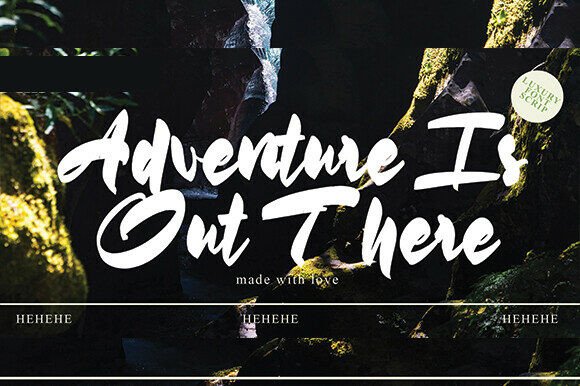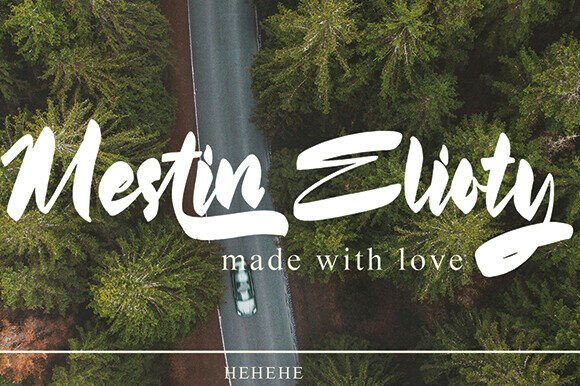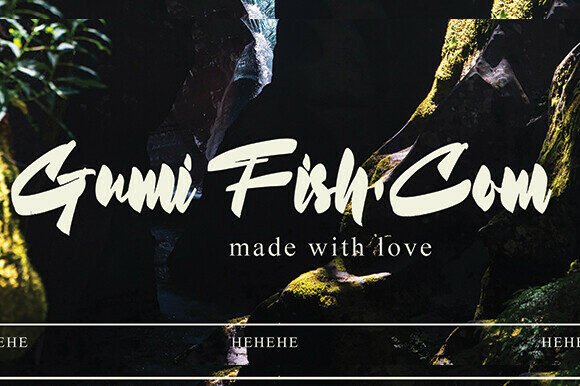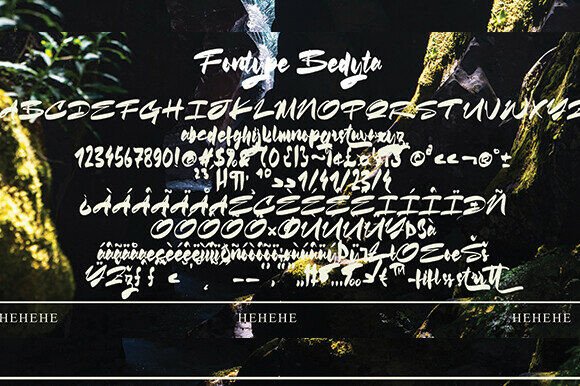
Bedyta Font: The Ultimate Choice for Modern Branding
In the world of typography, fonts play a crucial role in defining a brand’s identity. A well-chosen font can elevate a brand’s visual appeal, convey its personality, and leave a lasting impression on its audience. One such font that has gained significant attention in recent times is Bedyta. This bold, energetic, and contemporary script font has become a favorite among designers and crafters, and for good reason.
What is Bedyta Font?
Bedyta is a modern script font characterized by its thick, brush-style strokes and smooth, flowing motion. The letterforms feature a slight italic lean and clean, rounded terminals, giving the typeface a polished yet hand-crafted personality. Its heavyweight and high legibility make it an impactful choice for modern branding. Whether you’re designing a logo, creating social media headers, or crafting packaging, Bedyta is the perfect font to make a statement.
Key Features of Bedyta Font
- Bold and Energetic: Bedyta’s thick, brush-style strokes give it a bold and energetic feel, making it perfect for headlines, titles, and emphasis.
- Contemporary Script: The font’s smooth, flowing motion and slight italic lean give it a contemporary and dynamic feel.
- Clean and Rounded Terminals: The clean, rounded terminals add a touch of sophistication and elegance to the font.
- High Legibility: Bedyta’s heavyweight and clear letterforms make it highly legible, even at smaller sizes.
Use Cases for Bedyta Font
Bedyta is a versatile font that can be used in a variety of design applications. Here are some of the most popular use cases:
- Lifestyle Logos: Bedyta’s bold and energetic personality makes it perfect for lifestyle logos that require a modern and dynamic feel.
- Apparel Design: The font’s high legibility and clean lines make it suitable for apparel design, including t-shirts, hoodies, and other clothing items.
- Social Media Headers: Bedyta’s contemporary script style and bold strokes make it an excellent choice for social media headers, including Facebook, Instagram, and Twitter.
- Creative Packaging: The font’s unique personality and high legibility make it perfect for creative packaging designs that require a modern and eye-catching feel.
Why Choose Bedyta Font?
With so many fonts available, why choose Bedyta? Here are a few reasons why Bedyta stands out:
- Unique Personality: Bedyta’s bold, energetic, and contemporary script style gives it a unique personality that sets it apart from other fonts.
- High Versatility: The font’s versatility makes it suitable for a wide range of design applications, from logos to social media headers.
- Easy to Read: Bedyta’s high legibility makes it easy to read, even at smaller sizes.
- Modern and Fresh: The font’s modern and fresh feel makes it perfect for brands that want to convey a youthful and dynamic image.
In conclusion, Bedyta is a bold, energetic, and contemporary script font that is perfect for modern branding. Its unique personality, high versatility, and high legibility make it an impactful choice for designers and crafters. Whether you’re designing a logo, creating social media headers, or crafting packaging, Bedyta is the perfect font to make a statement. So why not give Bedyta a try and see how it can elevate your brand’s visual appeal?